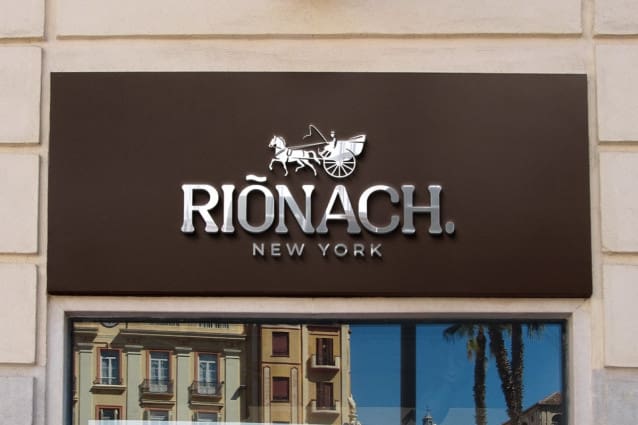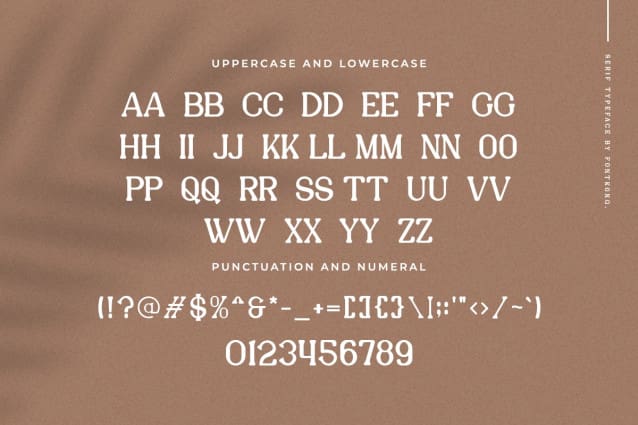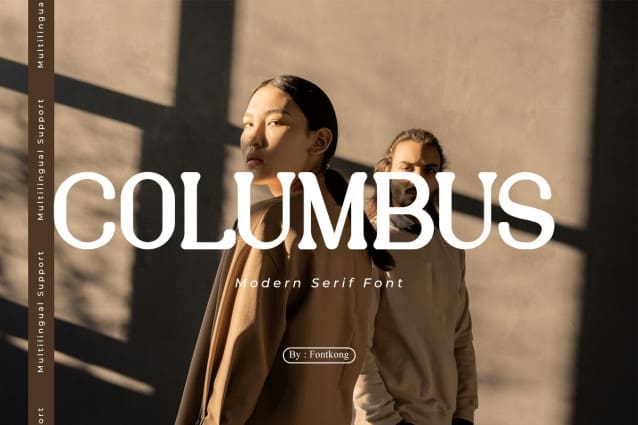
Columbus Font
Columbus Font – Modern Classy Serif Font is a typeface that exudes modernity and is most elegant. Easy to read yet artistic, this font can serve multiple uses depending on the user. In the large and small text, this font is legible and reaching. Columbus Font – Modern Classy Serif Font is a modern font and stylish font. This font was an arrangement to be an up-to-date serif-style typeface.
Columbus Font – Modern Classy Serif Font may use for product production, digitally and in promotions on the web and social media, as well as in printed forms such as magazines and posters. One product that can be combined with this font is fashion and beauty. Magazines that cover fashion and beauty topics can use the Columbus Modern Classy Serif Font as their cover. This font can also be used as a brand on the product packaging. This font can be applied in screen printing, both in small and large quantities.
In modern business needs, Columbus Font – Modern Classy Serif Font is also suitable for personal name cards and business signage indicating a place, such as cafes, boutiques, and makeup shops. Columbus Font – Modern Classy Serif Font is one of the best fonts to use for wedding fonts and similar formal events. It can be applied to invitation cards and event banners.